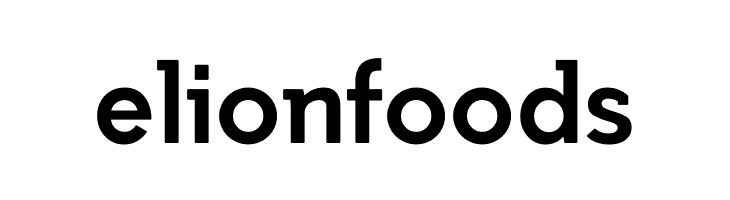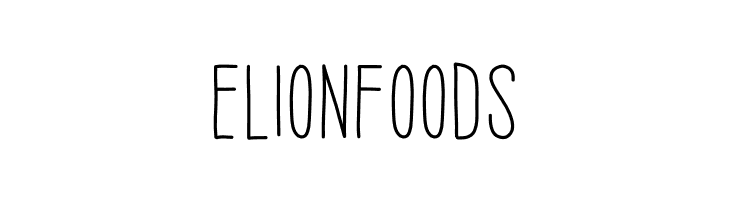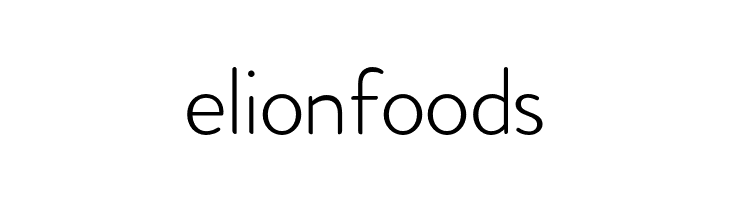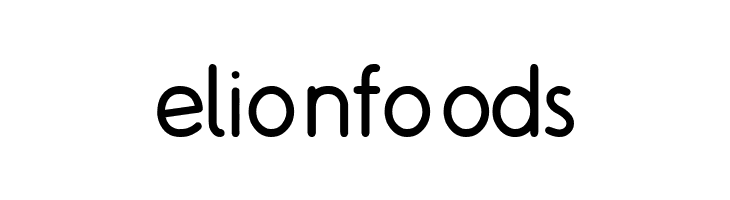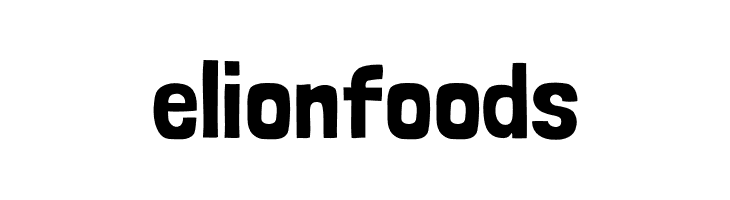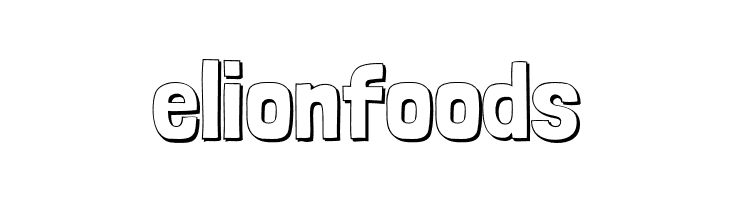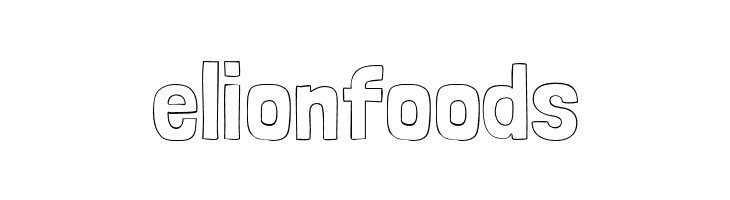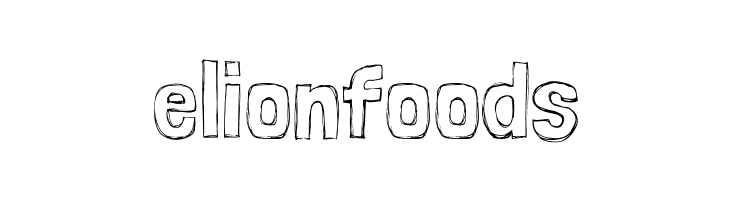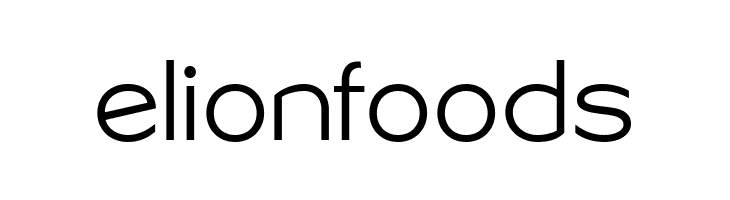
( Dominique Demetz )
A whimsical font with celestial motifs and playful, decorative elements.
( Freshfish - Jesús González García - freshfish.es/ )
A modern, light sans-serif font with clean lines and excellent readability.
( Jef Triforce - Francisco Arellano - www.ixipcalli.com )
A modern, rounded sans-serif font with excellent readability and a friendly appearance.
( Marcelo Magalhães Pereira - www.marcelomagalhaes.net )
A bold, playful font with a modern, slightly quirky style.
( Marcelo Magalhães Pereira - www.marcelomagalhaes.net )
A bold, playful font with a distinctive shadow effect.
( Marcelo Magalhães Pereira - www.marcelomagalhaes.net )
A playful, bold outline font with a modern and creative style.
( Marcelo Magalhães Pereira - www.marcelomagalhaes.net )
A playful, sketch-like font with a hand-drawn, artistic feel.
( Måns Grebäck - www.mansgreback.com )
A modern, light sans-serif font with clean lines and excellent readability.
( Måns Grebäck - www.mansgreback.com )
A modern, condensed font with excellent readability and a professional appearance.